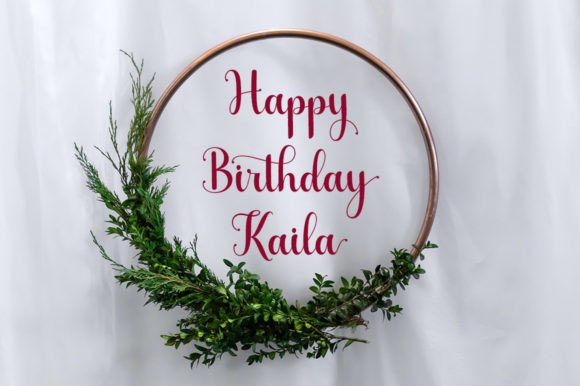
Kaila Giovani Font
Kaila Giovani is a chic, refined script font that emanates sophistication and elegance. It’s stylish alternates and ligatures make this incredibly feature rich font the perfect match for any project.